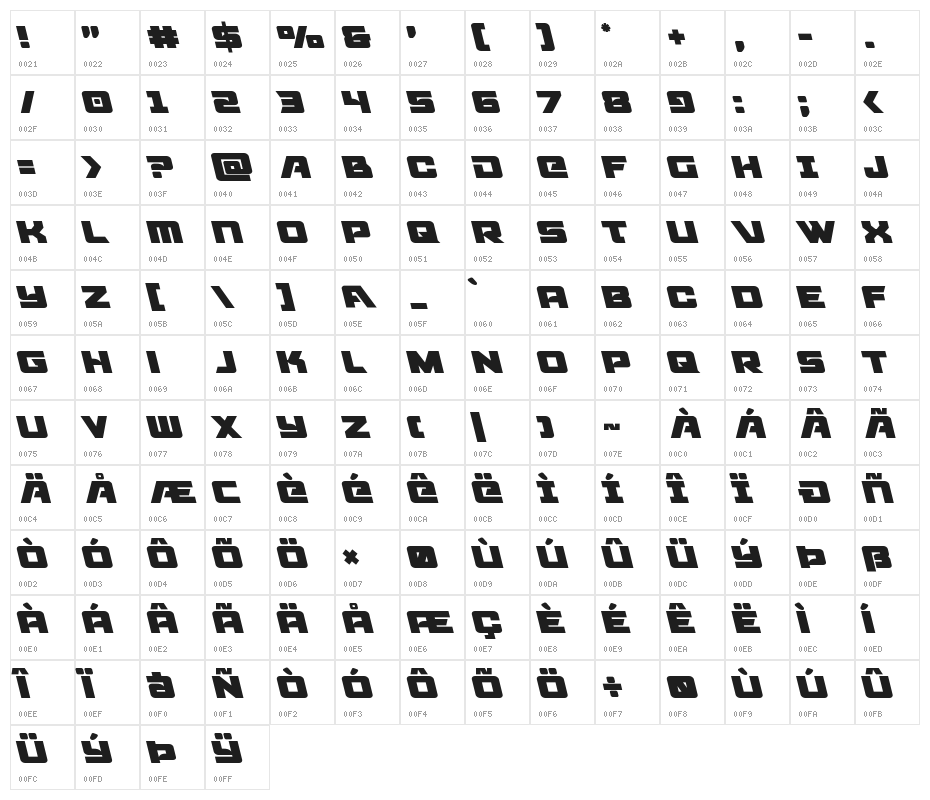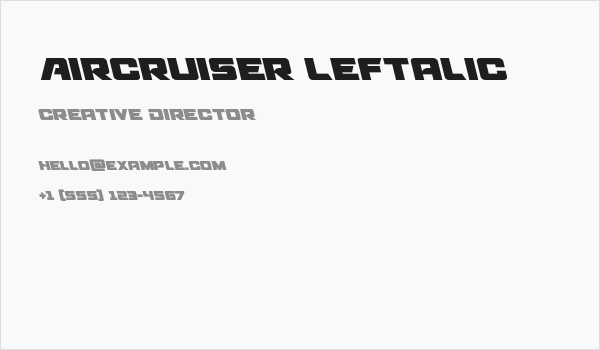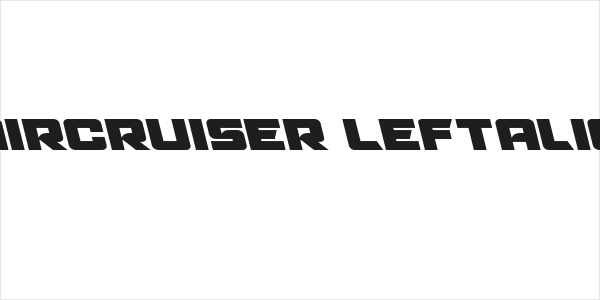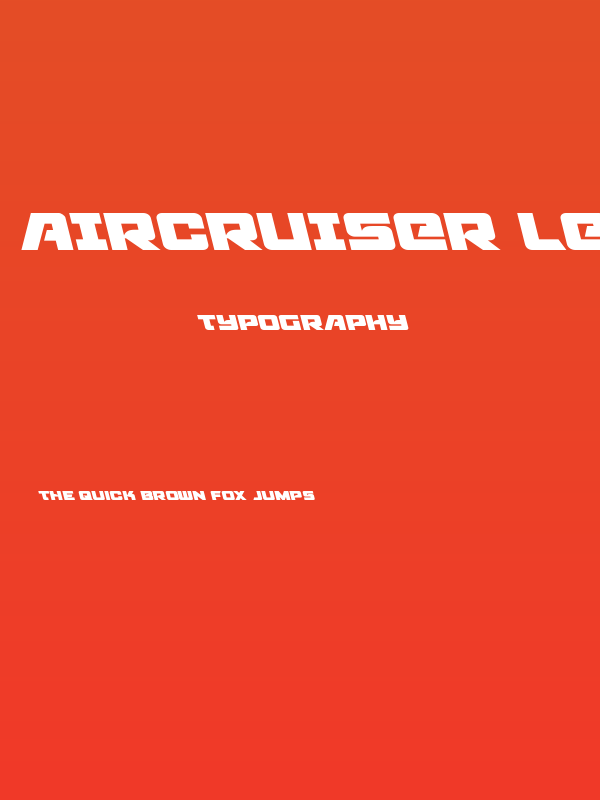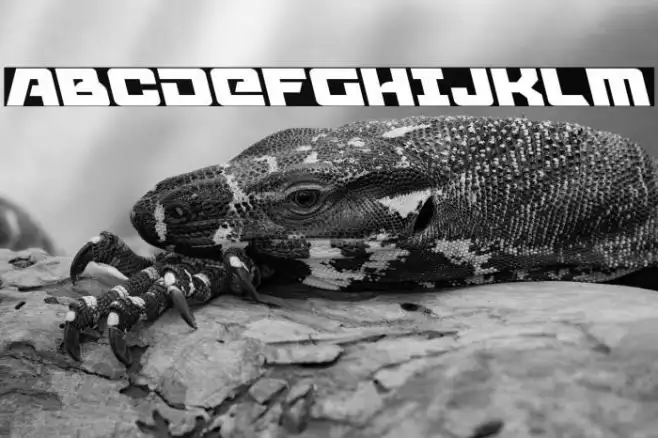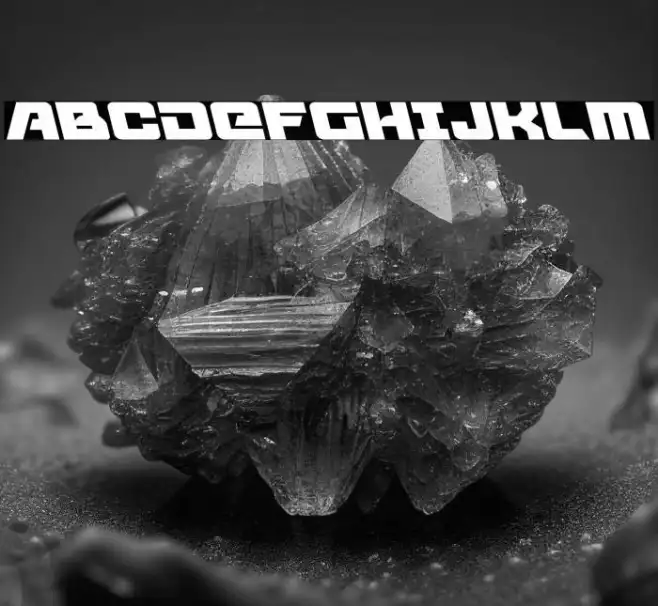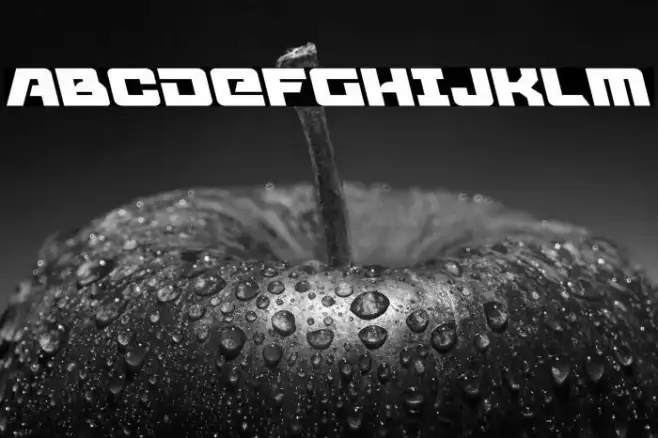
Aircruiser Leftalic Font
Aircruiser Leftalic Description
This font features a bold, angular design with a futuristic and dynamic appearance. The characters are slanted to the left, giving a sense of motion and speed. The strokes are thick and consistent, with sharp edges and geometric shapes that create a strong visual impact. The uppercase and lowercase letters maintain a uniform style, while the numbers and special characters complement the overall aesthetic. This font is ideal for projects that require a modern and edgy look, such as technology branding, sports team logos, or sci-fi themed designs.
| Use Case | Logos, Headlines |
| Proposed Projects | Ideal for technology branding, sports logos, and sci-fi themed designs. |